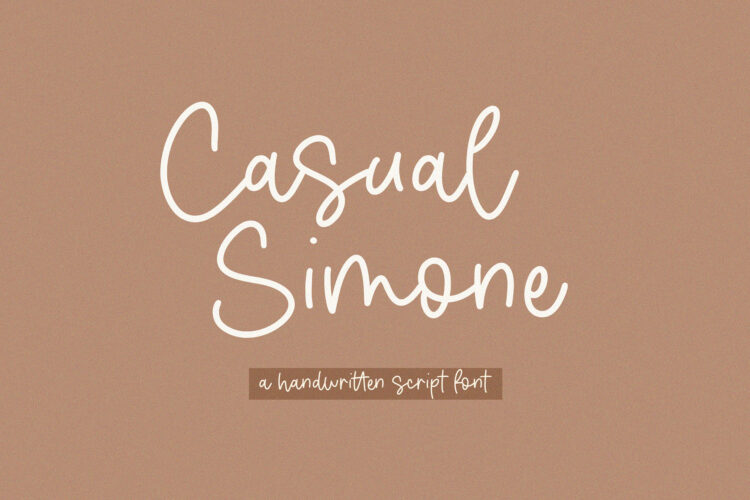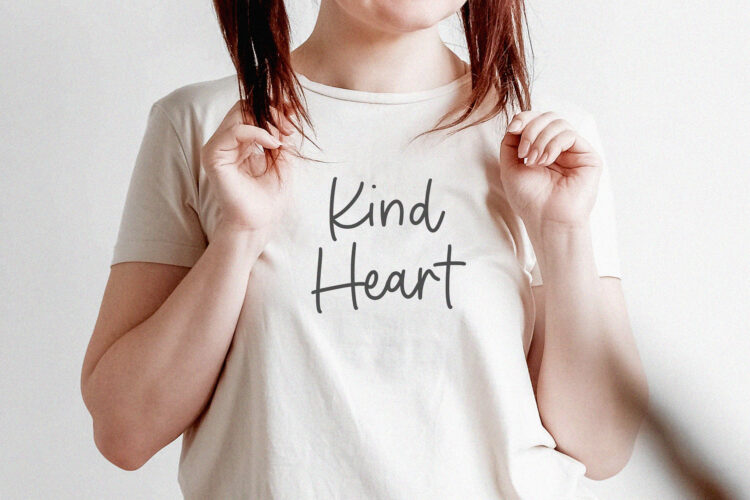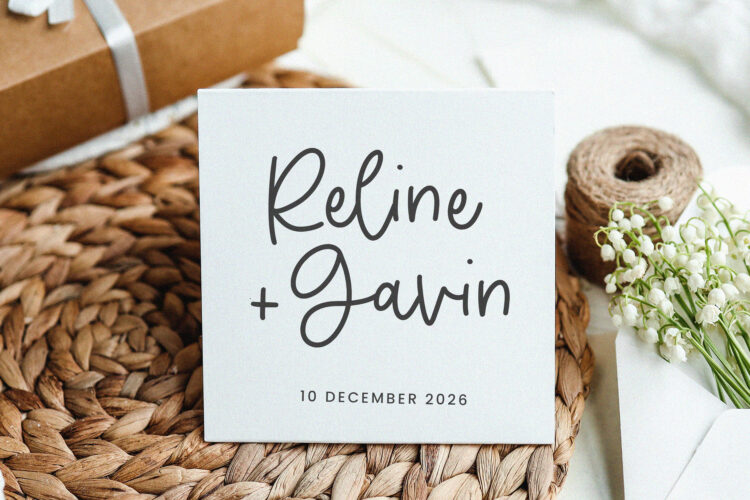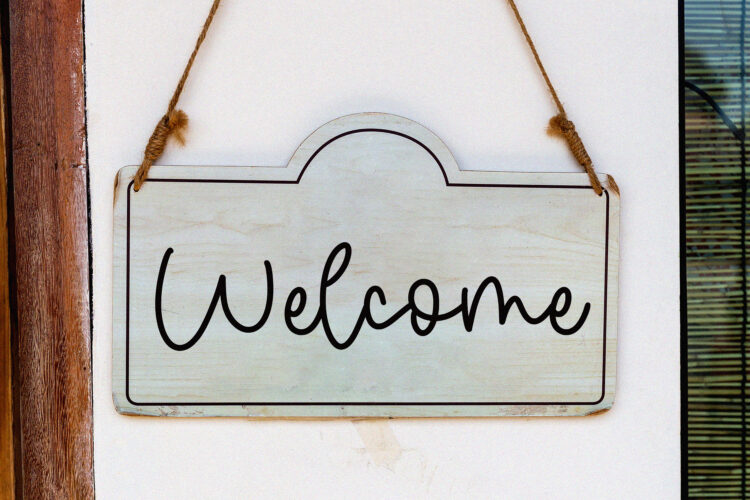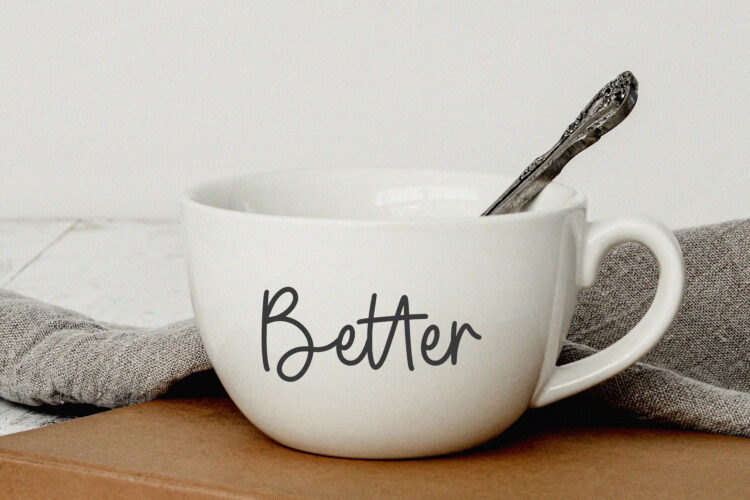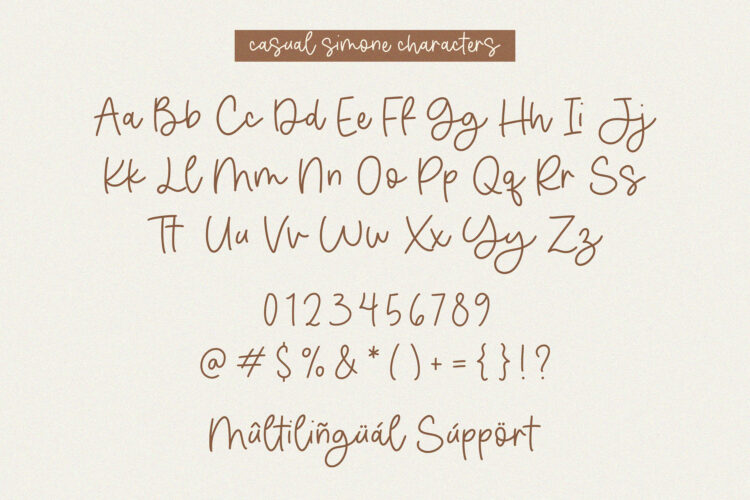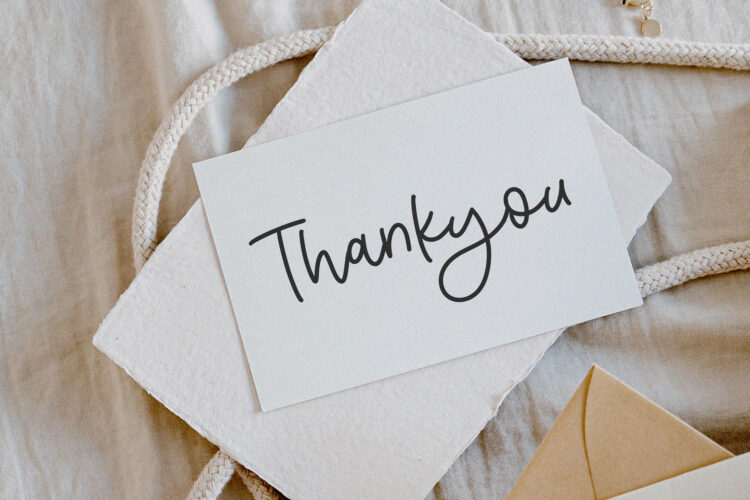
Casual Simone is a Handwritten Script Font
This font is a handwritten script font that blends a relaxed, informal feel with expressive brush-like strokes. It features slightly irregular letterforms and smooth curves, giving it a natural, touch similar to real handwriting. This type of font is typically used to create friendly, approachable designs perfect for social media graphics, branding, invitations, or creative projects that need a casual yet stylish look.
Casual Simone Font also supports multilingualism